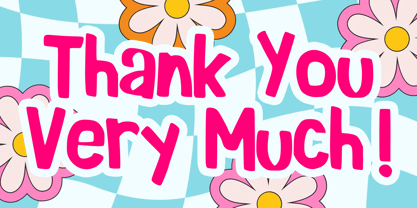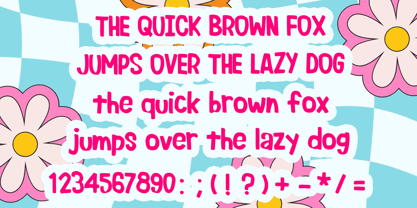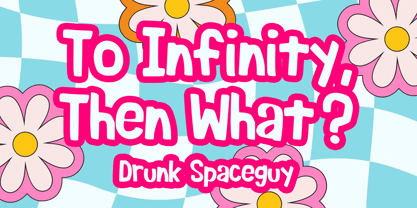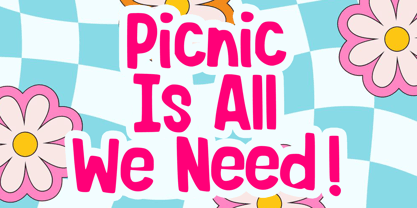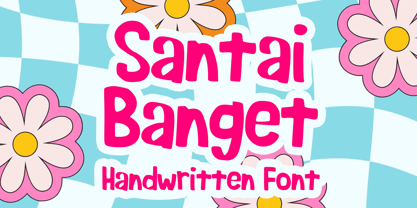
Santai Banget
The Santai Banget Font Family was designed by Gabriel Valentinus and published by Mvmet. Santai Banget contains 1 styles. More about this family
Santai Banget is a vibrant handwritten marker font, drawing inspiration from the playful world of comics and cartoons. Perfect for a wide array of applications, this font shines on t-shirts, book covers, greeting cards, stickers, posters, and packaging designs, providing that essential casual flair. Its versatility allows for creative expression, making it an excellent choice for anyone looking to craft charming and engaging designs. Embrace the unique character of Santai Banget and elevate your projects with its delightful style!